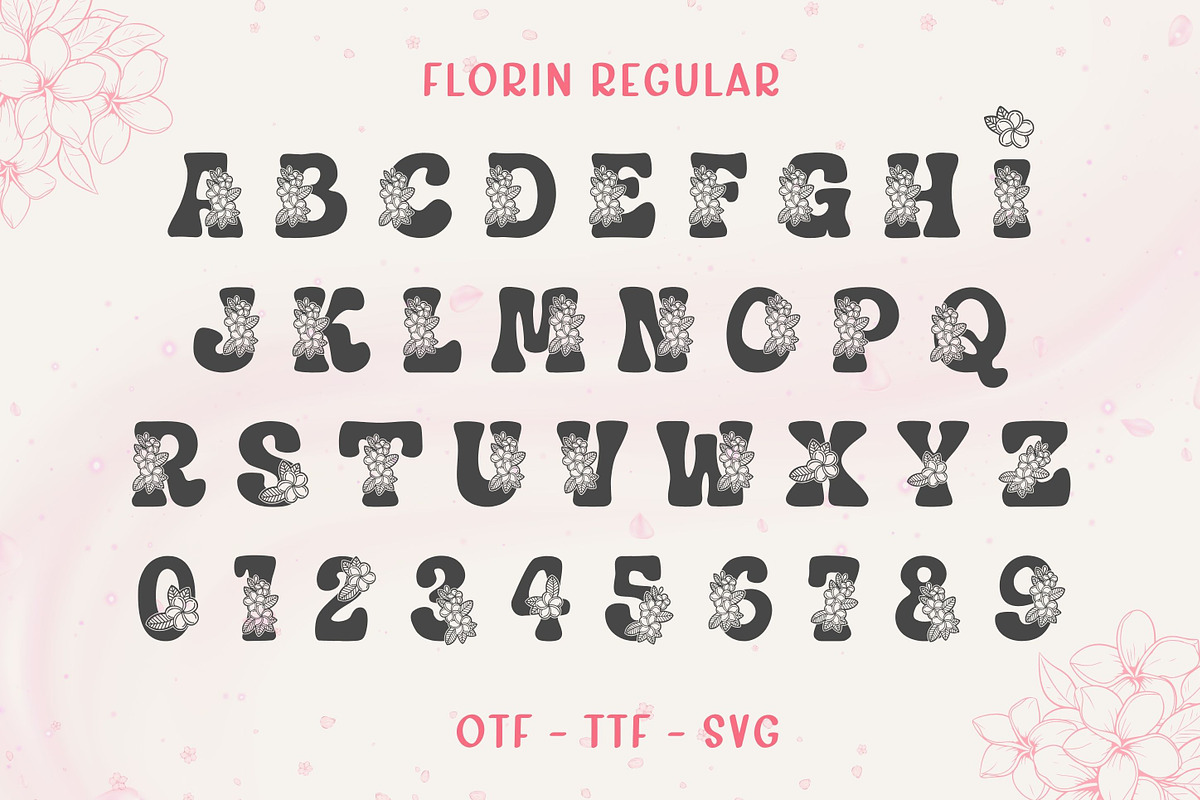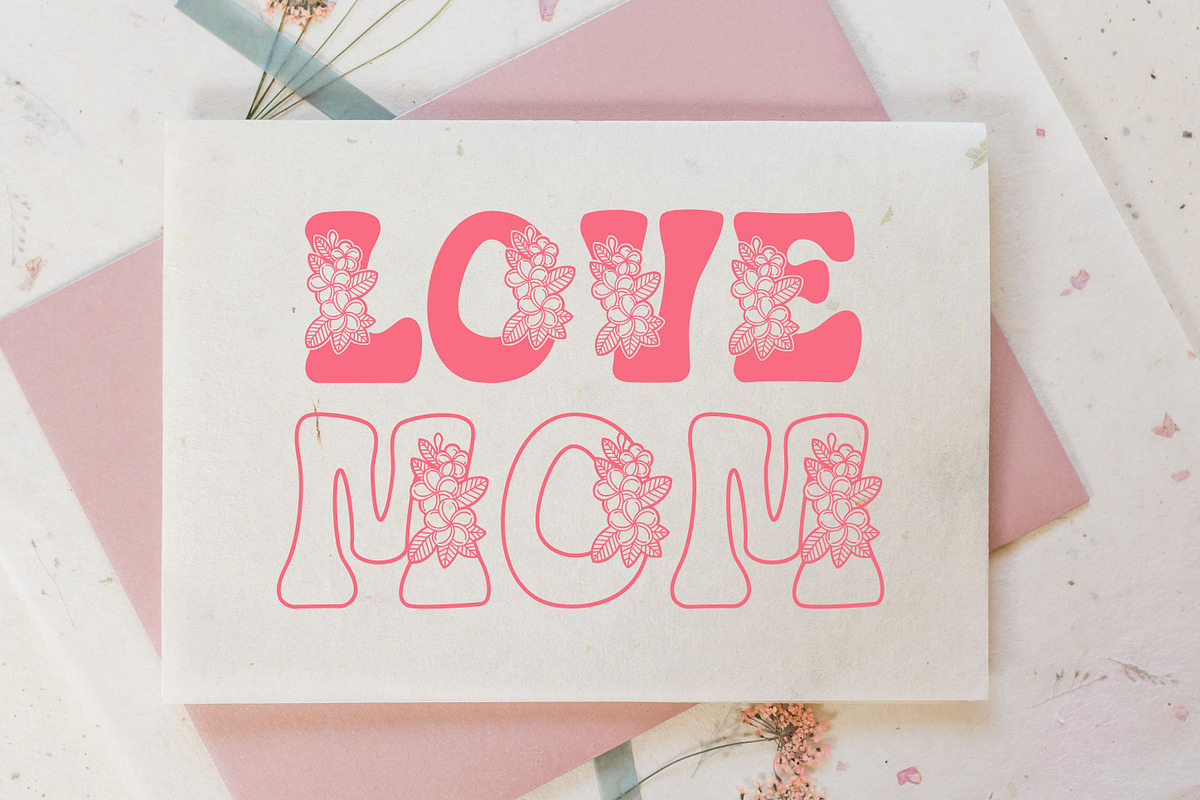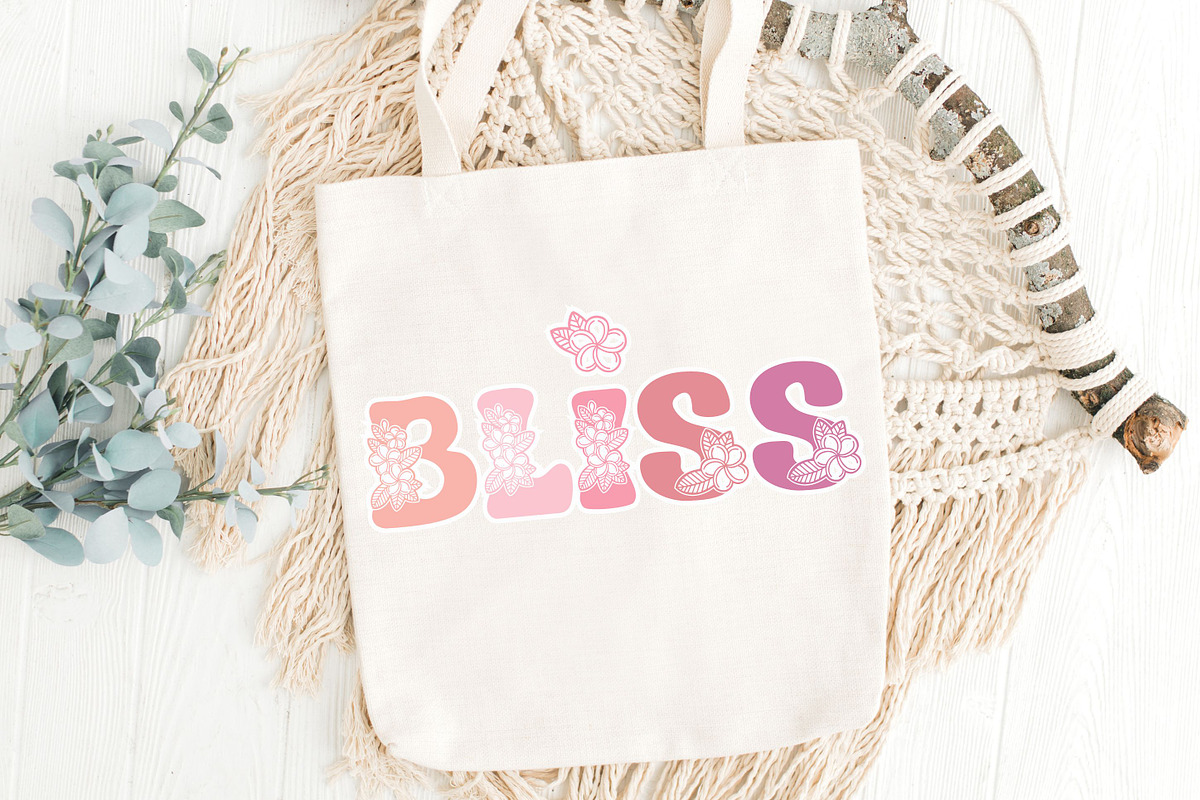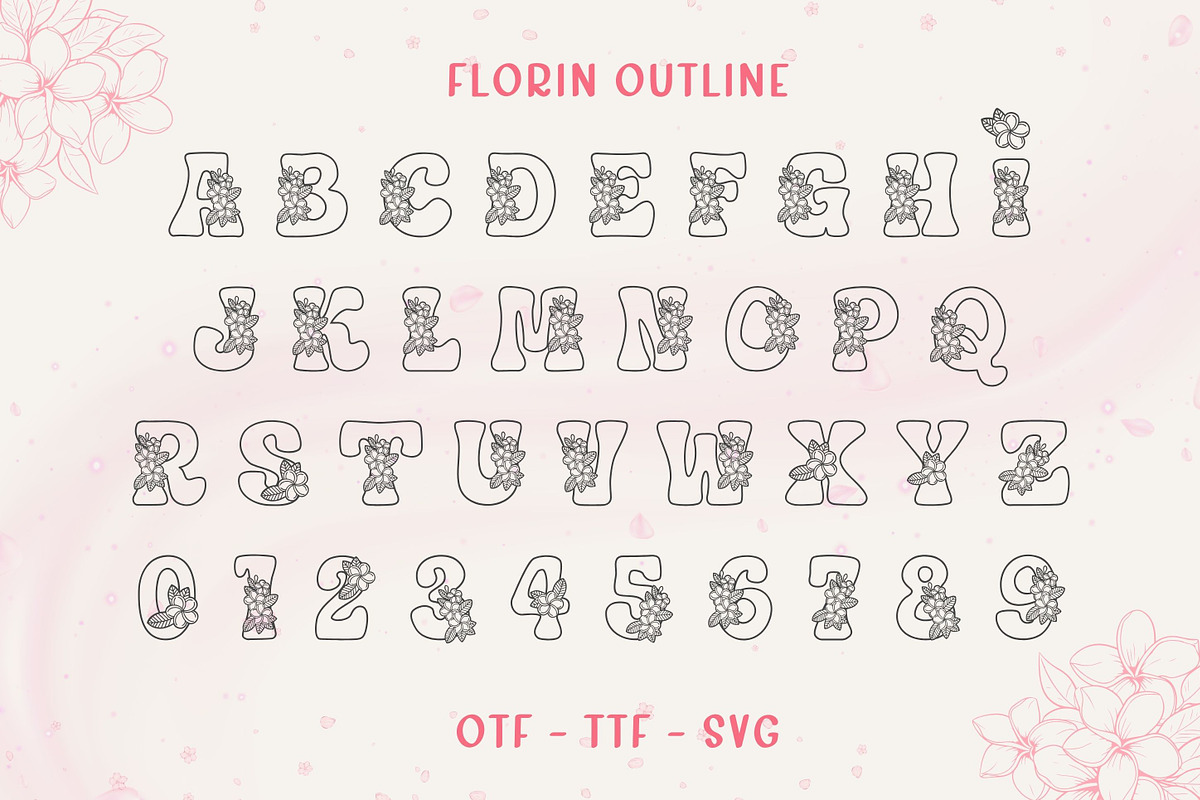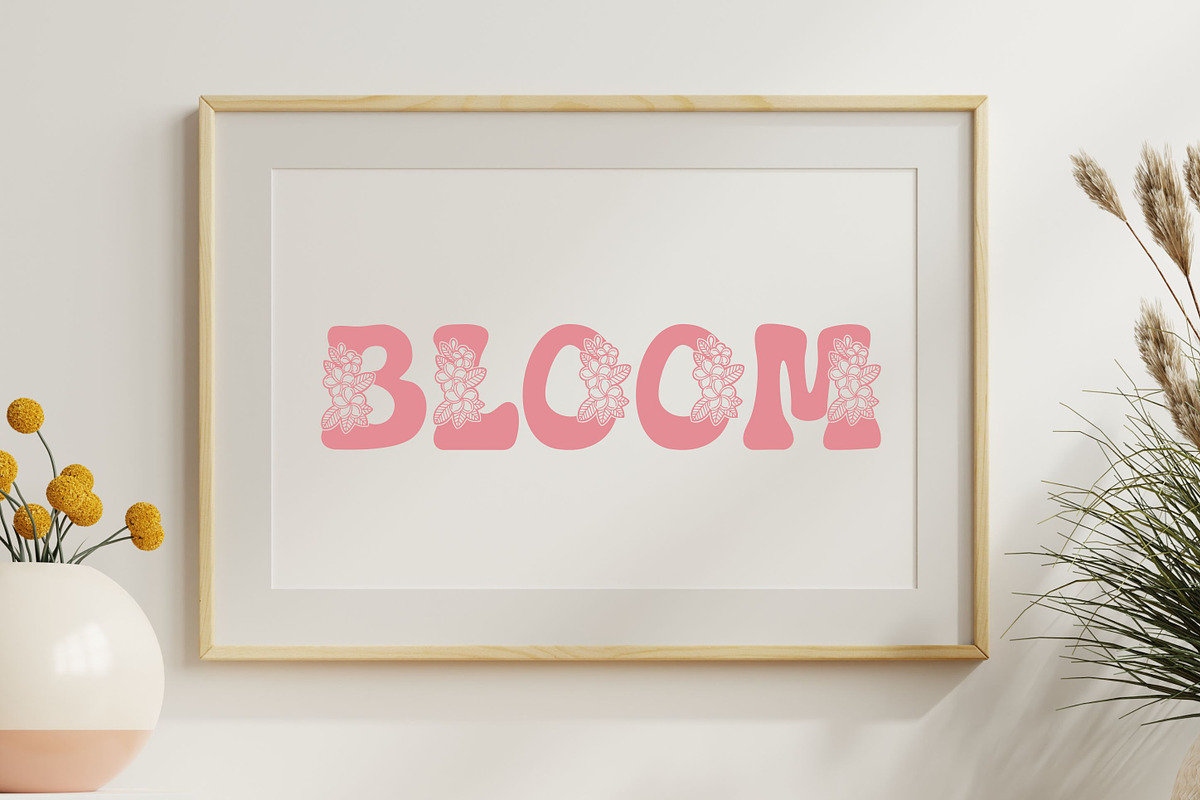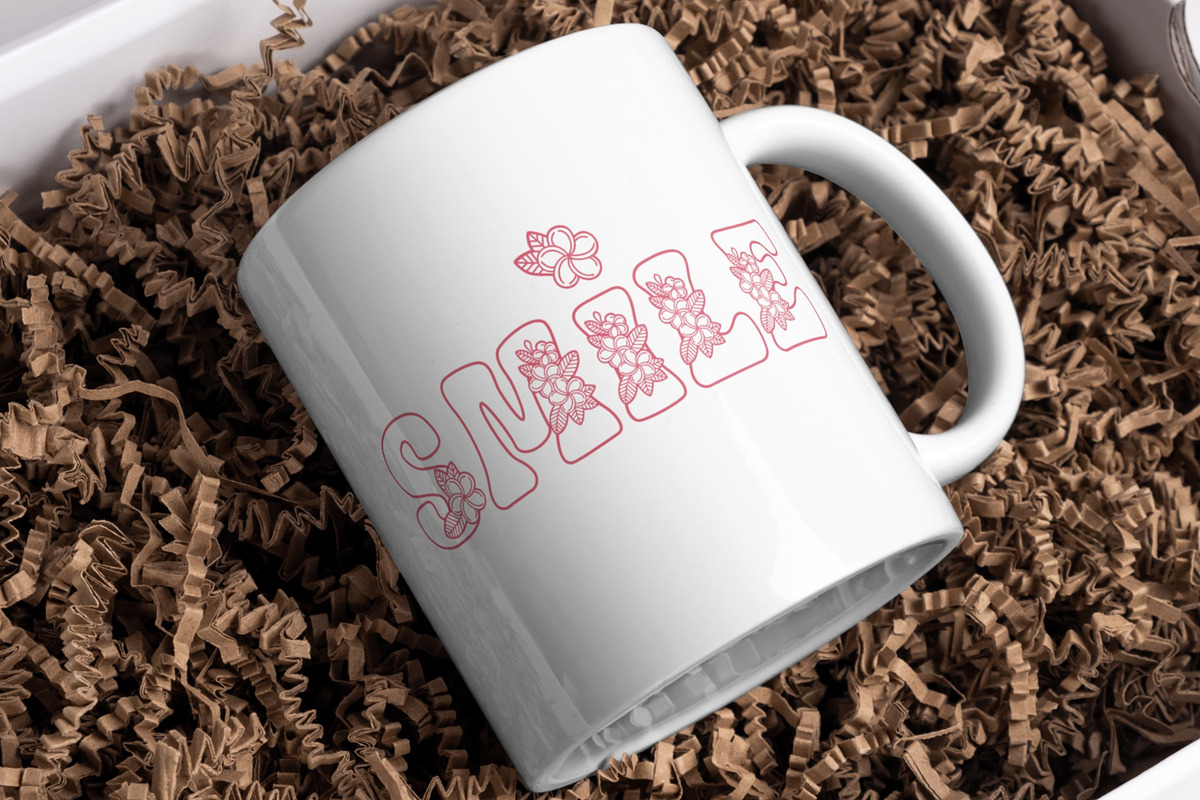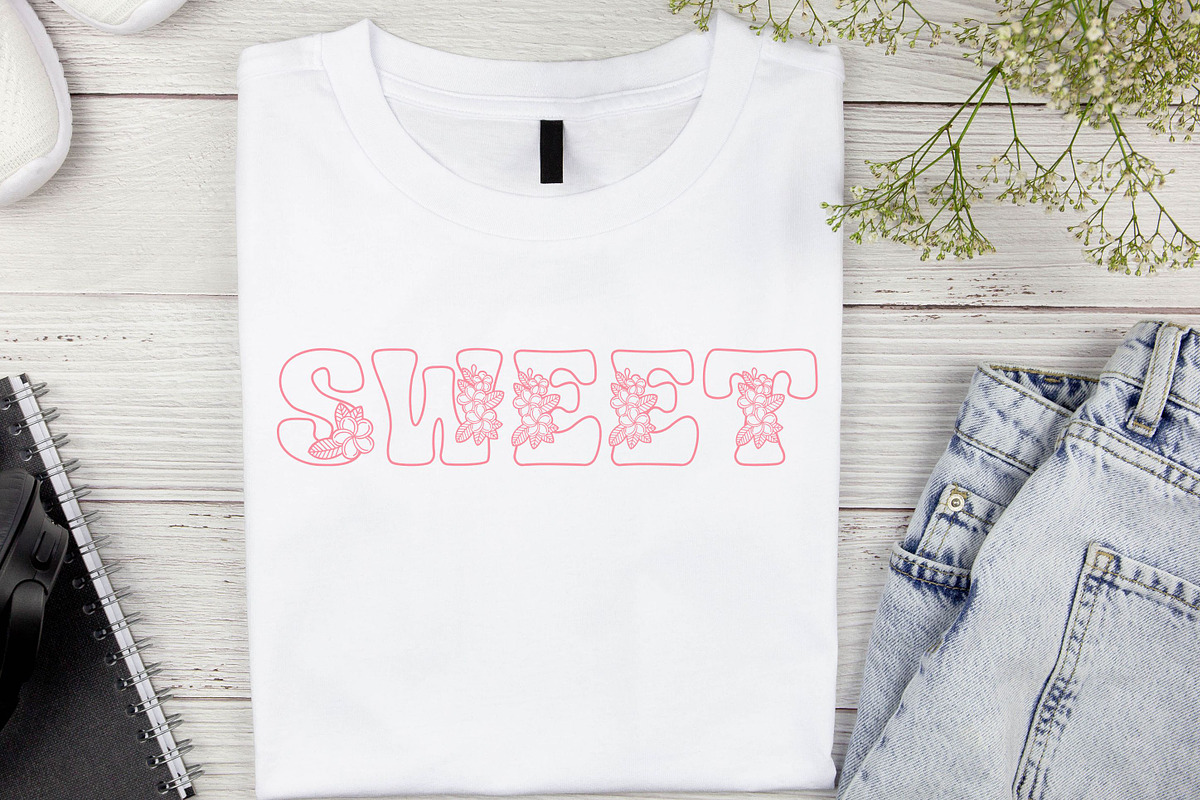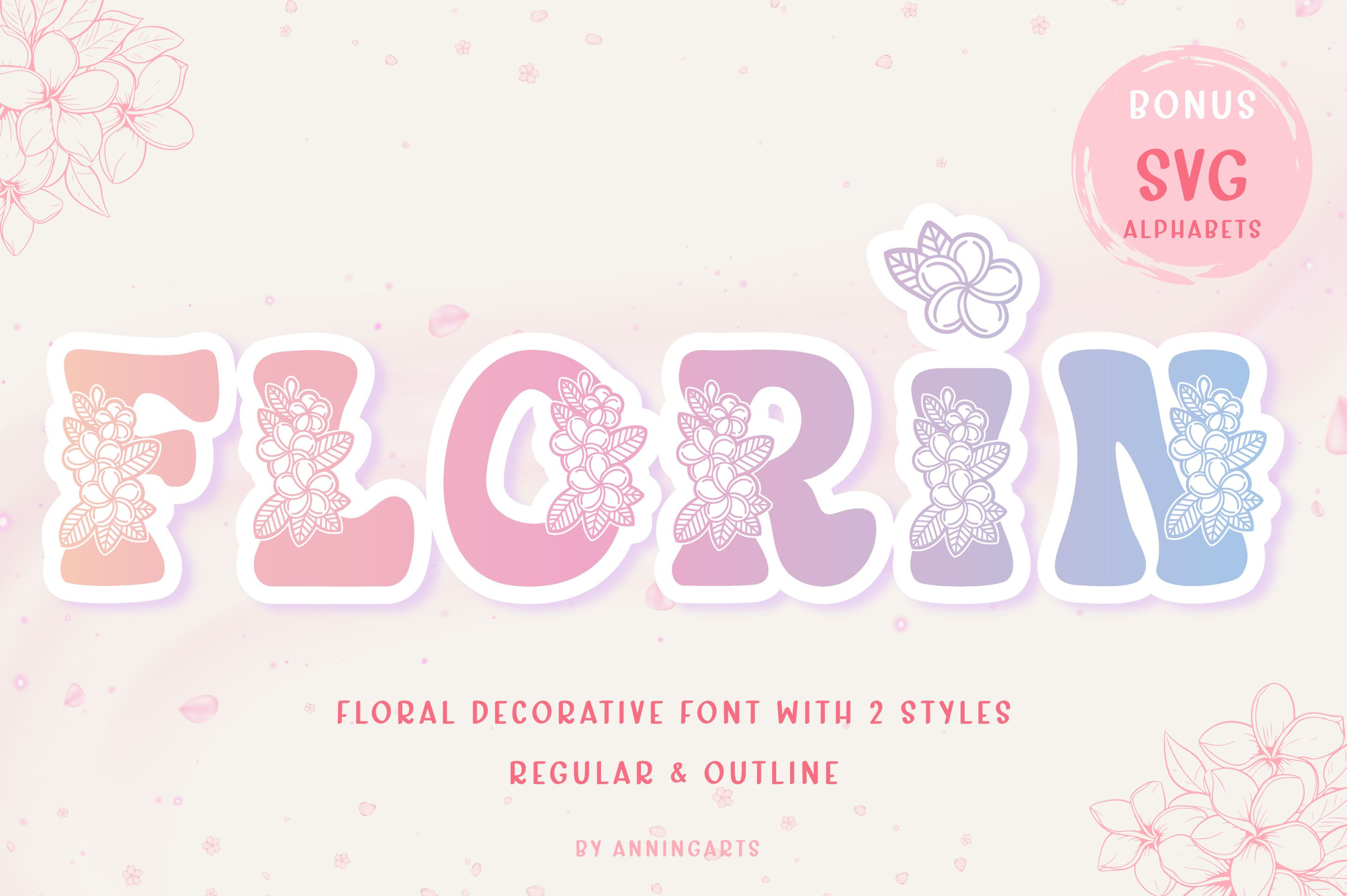
Florin - Floral Decor Font
Florin is a cute floral decorative font with two styles: Regular and Outline. Each letter is beautifully adorned with plumeria flowers and tropical leaves, creating a dreamy retro vibe perfect for your creative designs. This font is ideal for quotes, cards, posters, shirts, tote bags, mugs, and other projects that need a sweet floral charm.